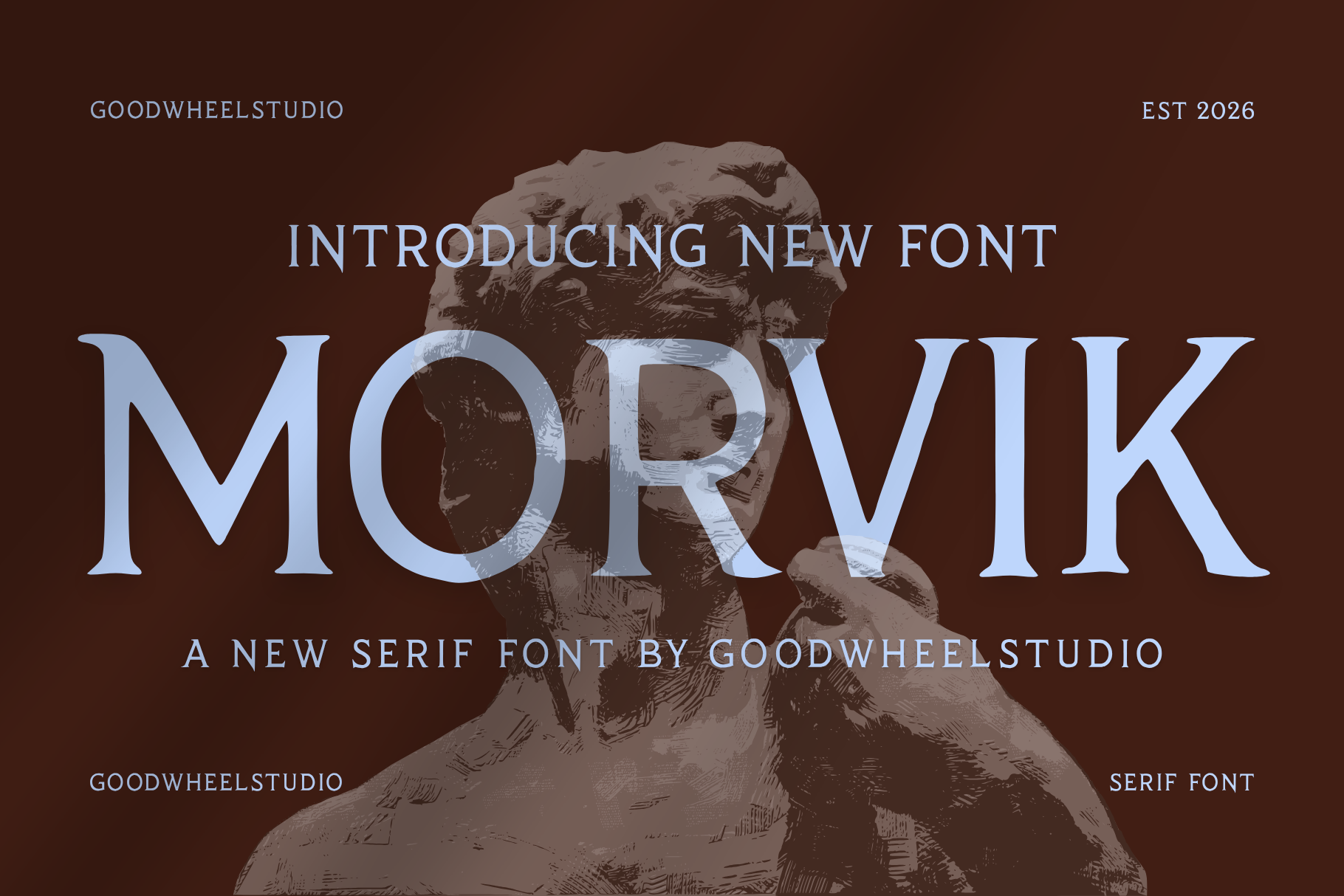
Morvik | Handdrawn Typeface
Morvic is an elegant vintage display serif inspired by classical typography, old-world book covers, and refined European-inspired lettering. With graceful curves, sharp serifs, distinctive proportions, and expressive details, Morvic combines timeless sophistication with a bold editorial personality. Its high-contrast forms make it ideal for luxury branding, fashion identities, magazine headlines, packaging, posters, invitations, labels, and sophisticated logo design. Morvic includes uppercase and lowercase letters, numerals, punctuation, symbols, and multilingual characters, offering versatility for both modern and vintage-inspired projects. Whether used for elegant branding or dramatic headlines, Morvic brings a polished, artistic, and memorable character to every composition with effortless style.